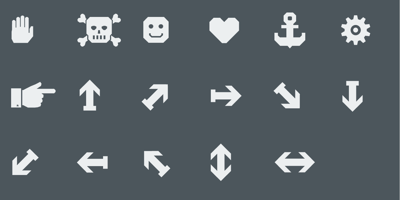
Kairos Font Family was designed by Terrance Weinzierl and published by Monotype. Kairos contains 51 styles and family package options. The Kairos™ family from Terrance Weinzierl is that rare form of typeface that successfully melds design distinction and ease of use. While based on 19th century Grecian wood type forms, it performs admirably in a variety of applications, both in print and on screen.Kairos Variables are font files which are featuring two axis and have a preset instance from Thin to Black and Condensed to Extended